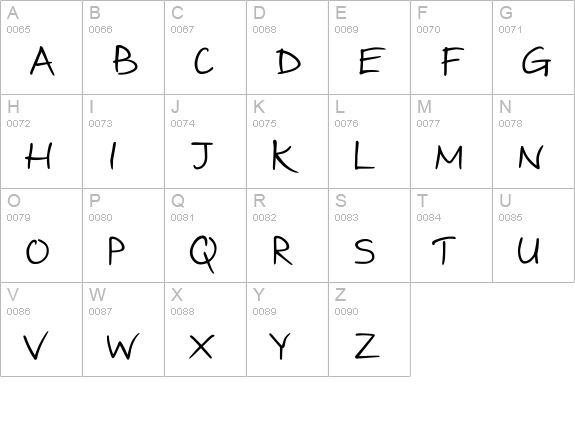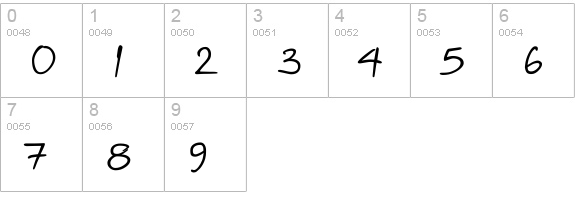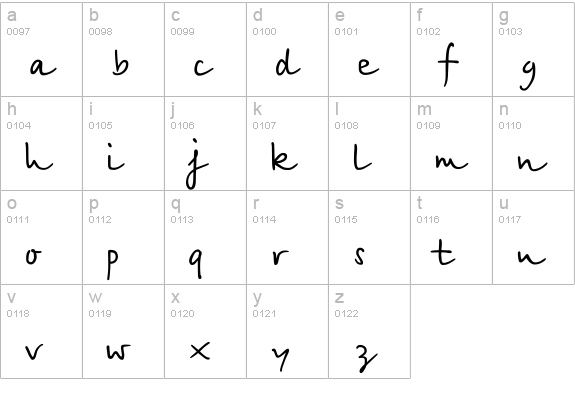
BirchCTT Font Details
BirchCTT is a versatile and elegant font that exudes a sense of modern sophistication. Its clean lines and subtle curves give it a timeless appeal that is perfect for a wide range of design projects. Whether you're creating a sleek logo, designing a stylish website, or crafting eye-catching marketing materials, BirchCTT is sure to make a lasting impression. What's even better is that BirchCTT is available for free download at FontsMarket.com. This means you can easily access this beautiful font and incorporate it into your projects without any cost. Don't miss out on the opportunity to enhance your designs with the timeless beauty of BirchCTT. Download it today and let your creativity shine!